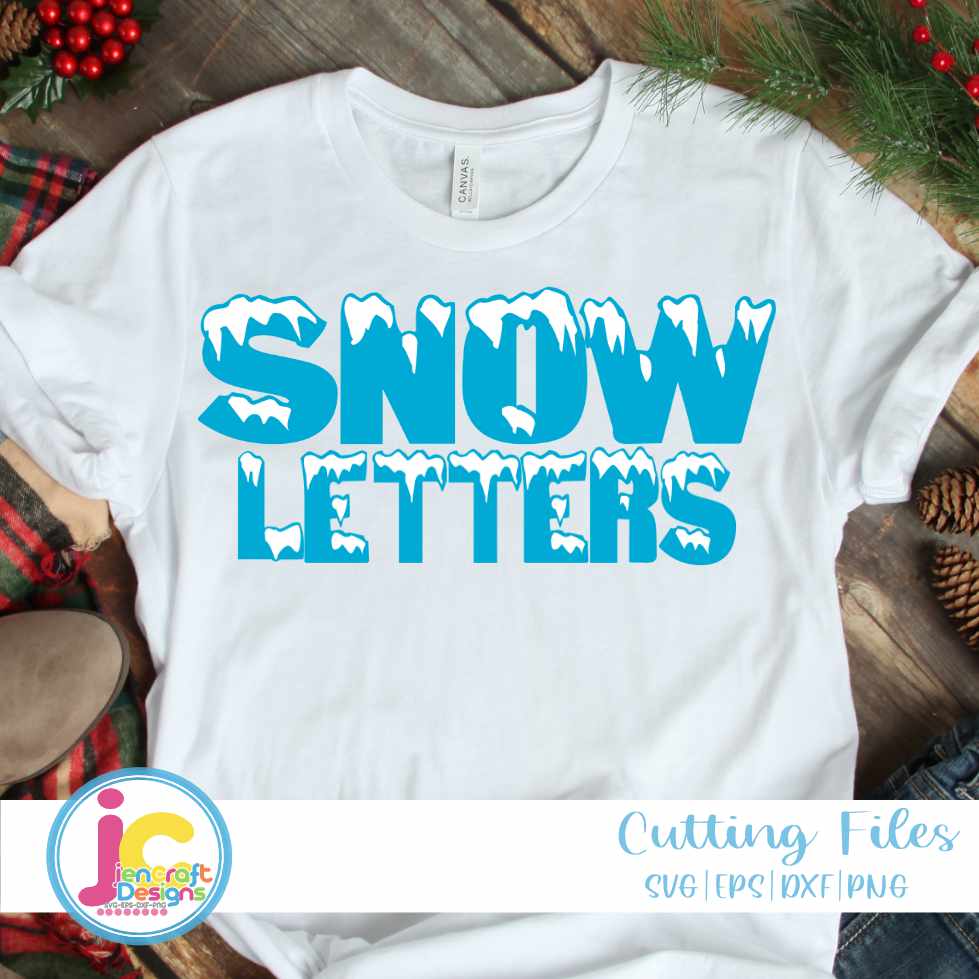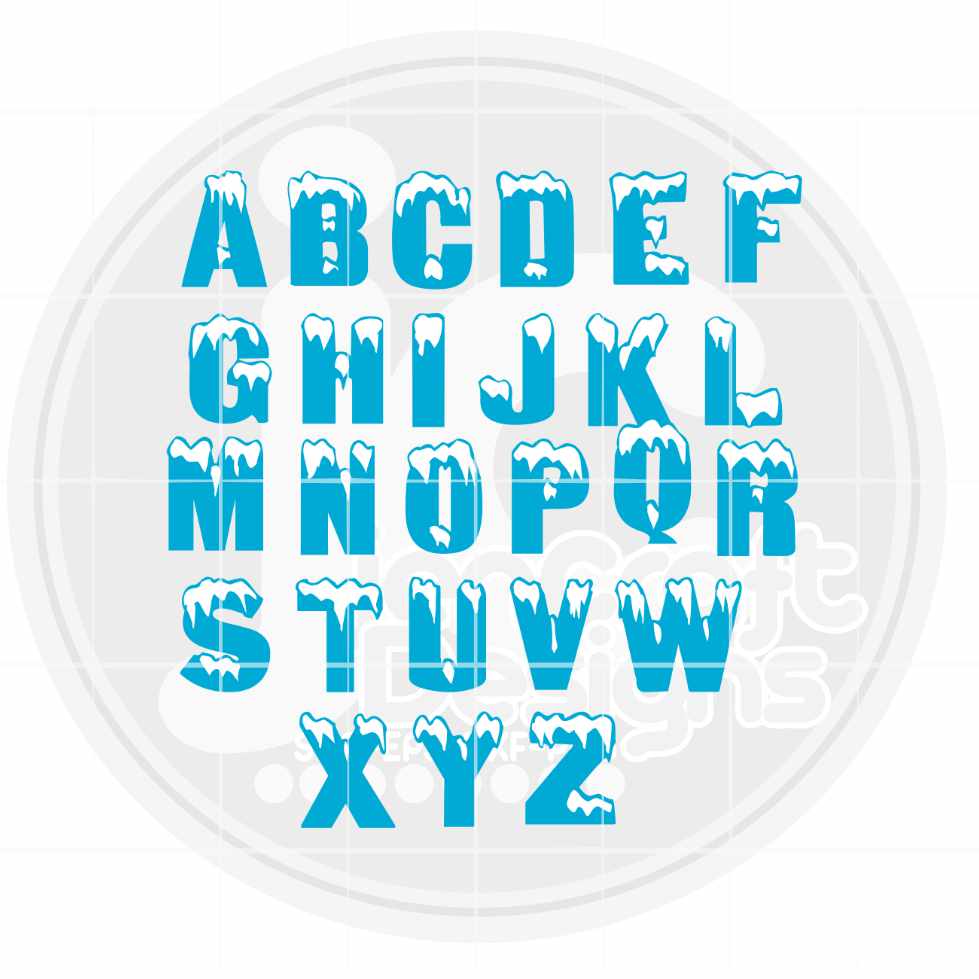
Spell out the magic of winter with this Snow Alphabet SVG — a full A-Z set of frosty, snow-styled letter cut files perfect for Christmas shirts, winter signs, ornaments, tote bags, and seasonal home decor. Clean-cutting, layered files work beautifully with Cricut, Silhouette, and more. Available in SVG, EPS, DXF, and PNG formats.
- Full A–Z snow alphabet